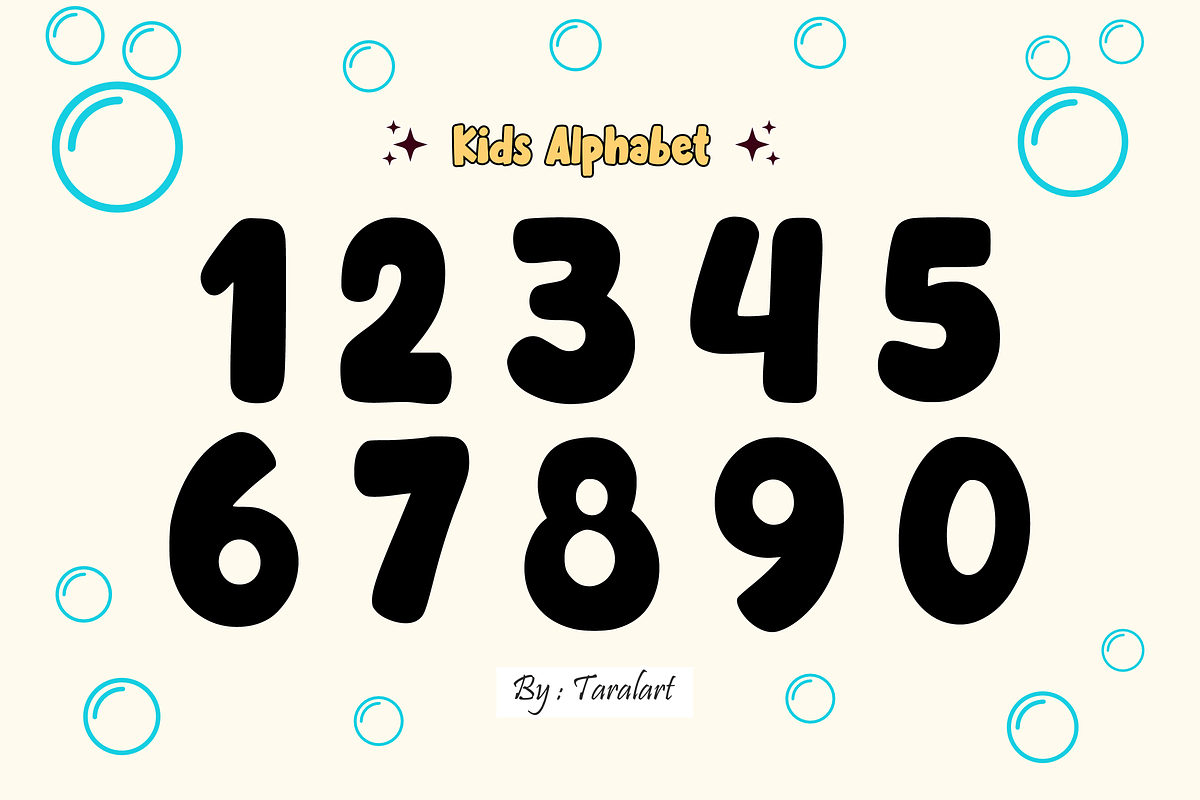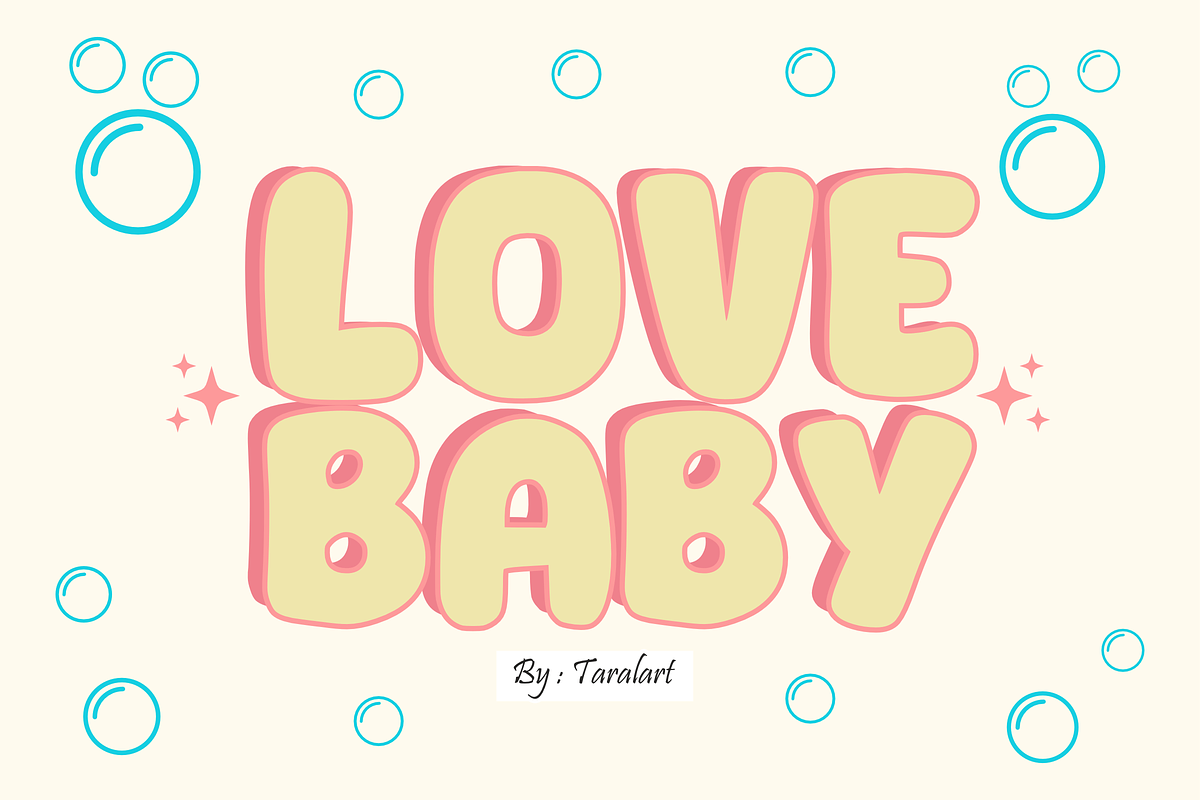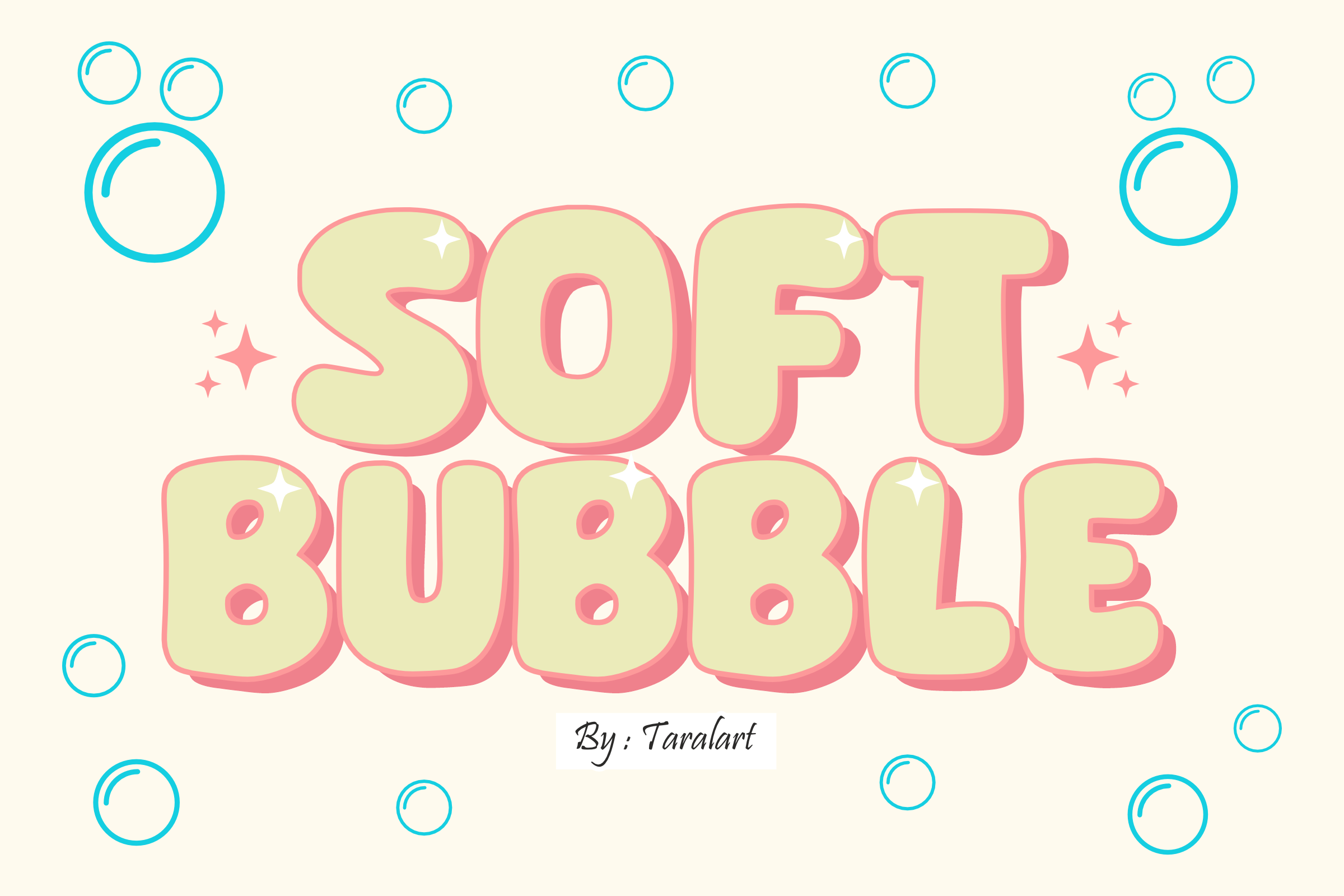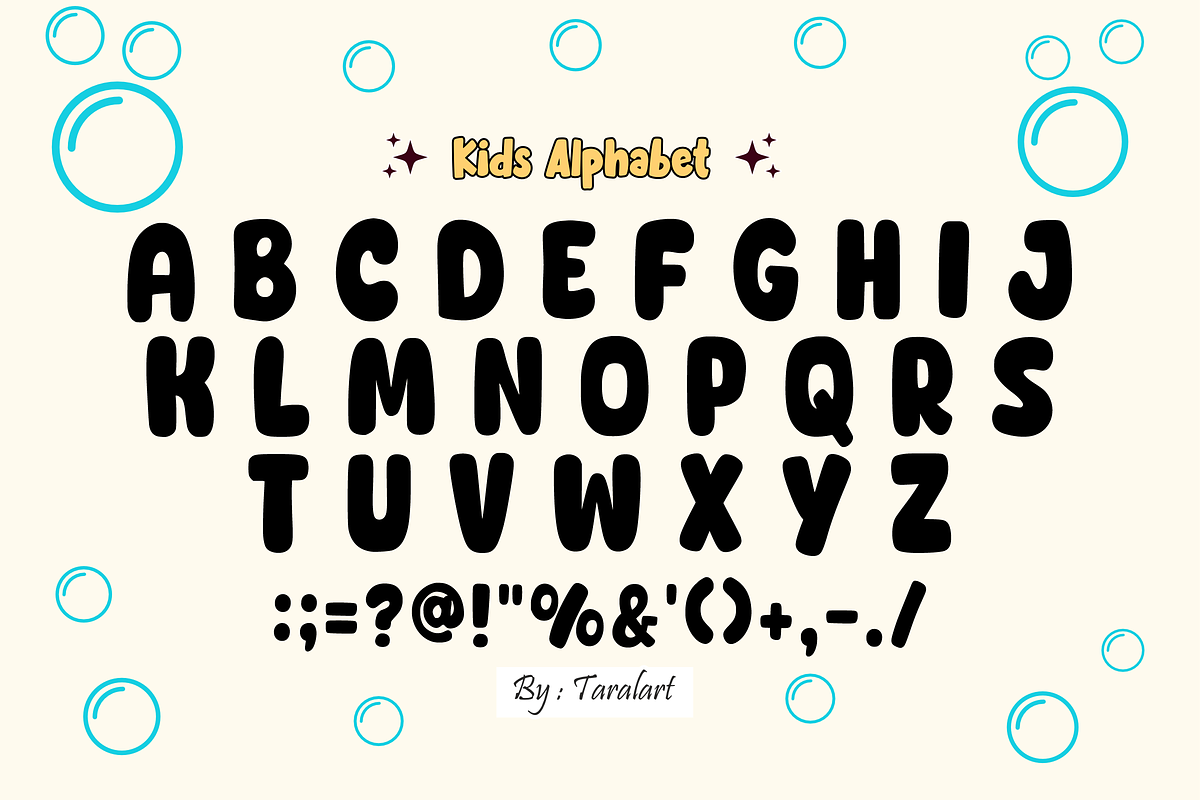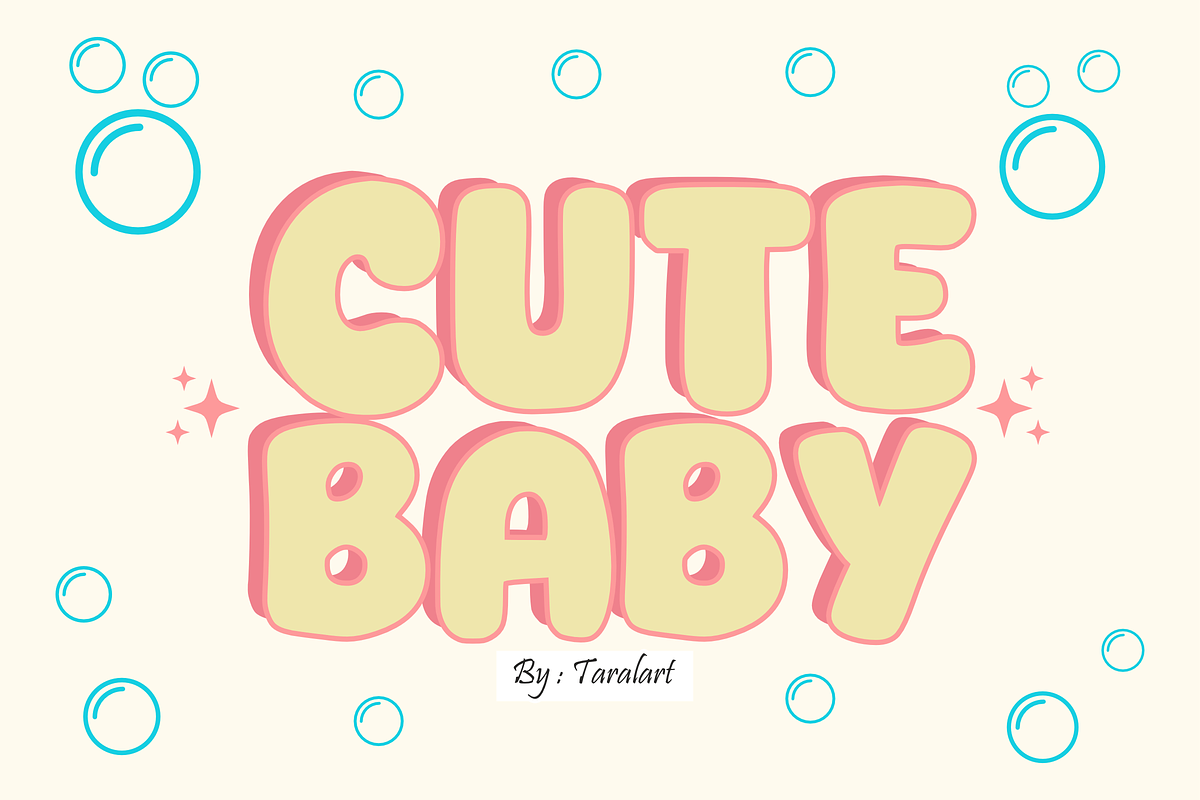
Soft Bubbles - Playful Bubble Font
Give your designs a sweet, joyful lift with Soft Bubbles! This ultra-chunky, puffy display font features super smooth rounded shapes and charming built-in sparkle highlights. It’s the perfect choice for creating standout crafts, cheerful merchandise, and playful branding that feels warm, friendly, and completely irresistible.
Whether you're crafting custom stickers, designing children's decor, or putting together a festive birthday invite, Soft Bubbles delivers excellent legibility and effortless cutting-machine performance. It is fully optimized for smooth rendering across all major creative software and professional printing setups.
All-Caps Character Set (Chunky, pillowy uppercase letters with cute sparkle accents)
Numbers & Simple Punctuation (Essential, clean symbols included)